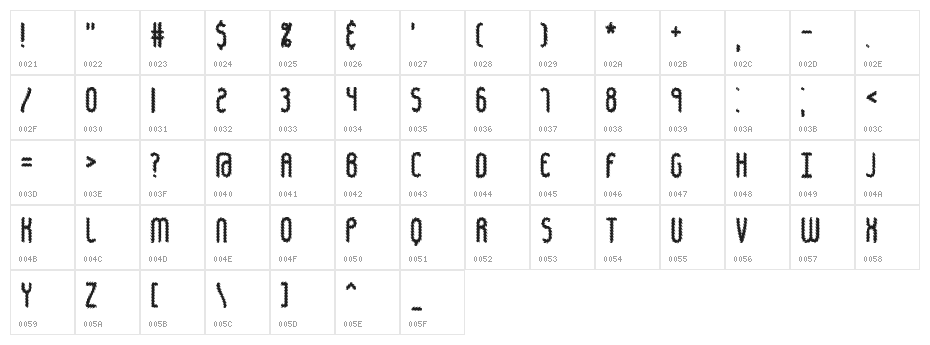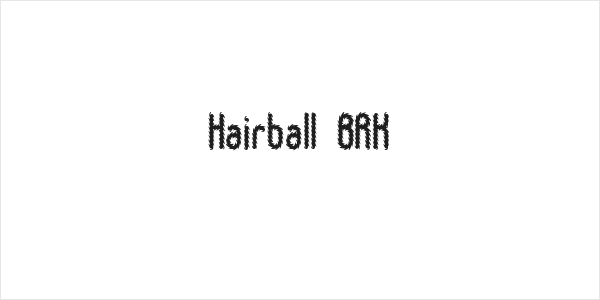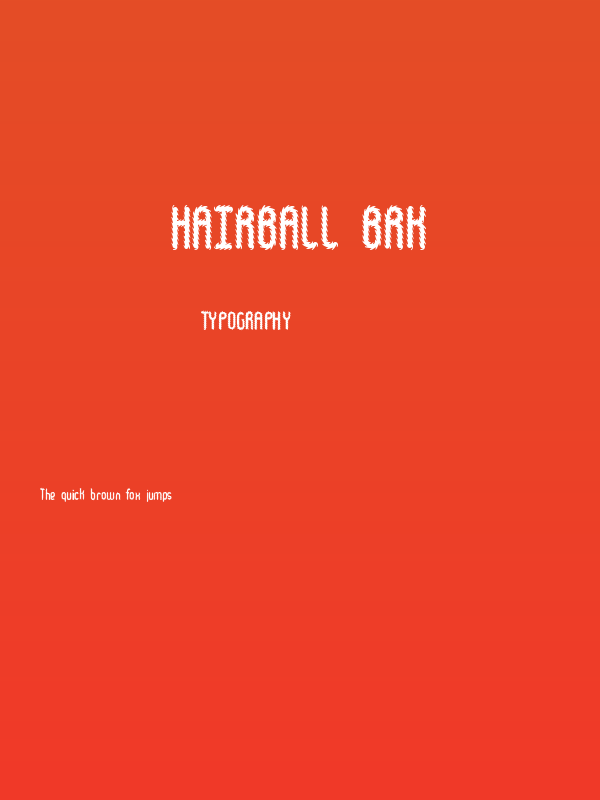
Hairball BRK Font
Hairball BRK Description
This font features a unique, playful design with a textured, furry appearance that mimics the look of tangled hair or yarn. The characters are bold and have a consistent thickness, giving them a strong presence. The style is highly decorative, making it ideal for creative projects that require a fun and whimsical touch. Each letter is distinct, with a slightly irregular outline that enhances the playful aesthetic. The font includes a full set of uppercase and lowercase letters, numbers, and a variety of special characters, all maintaining the same textured style.